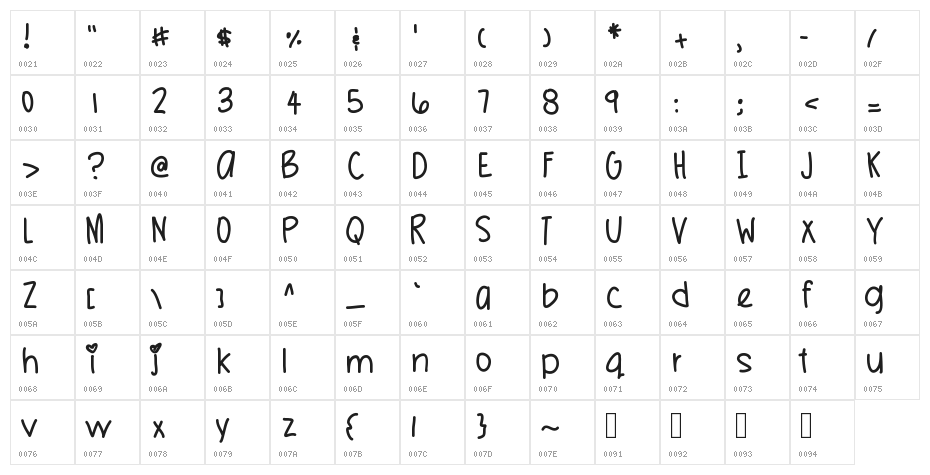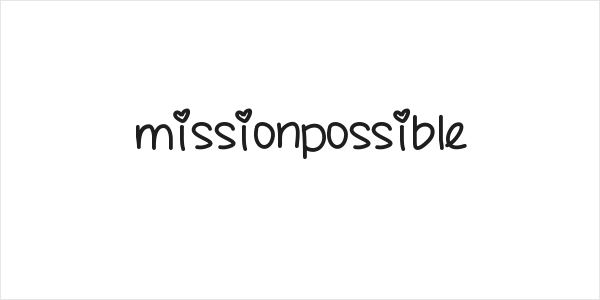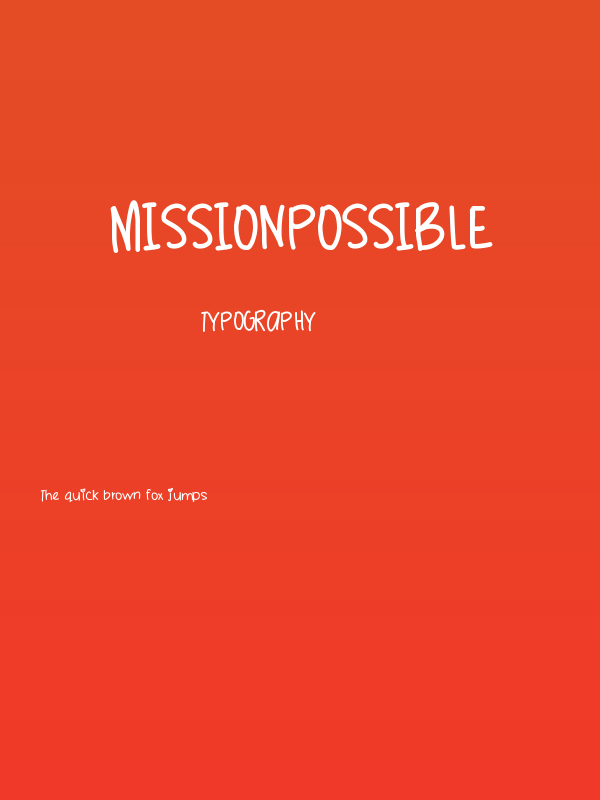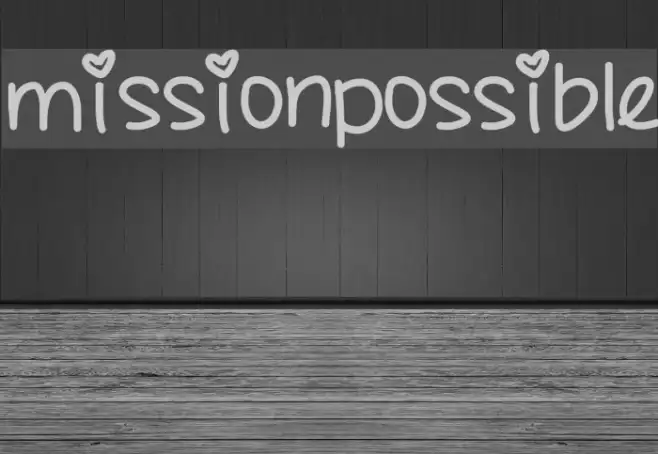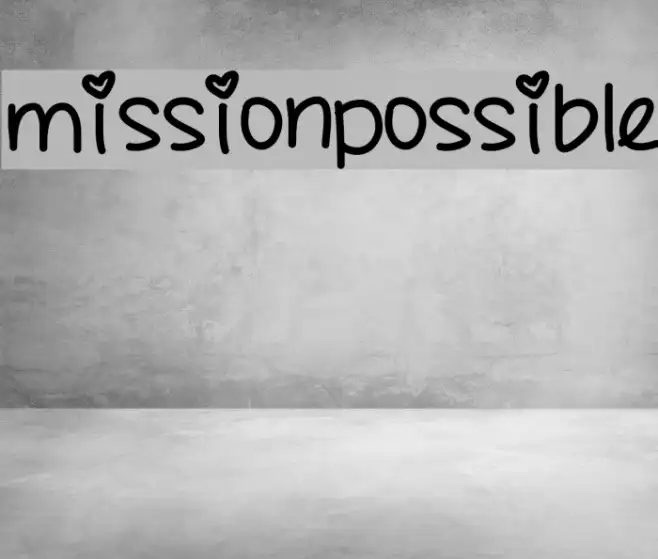
missionpossible Font
missionpossible Description
This playful and whimsical font features a handwritten style with a casual and friendly appearance. The characters are slightly irregular, adding to the charm and uniqueness of the font. The uppercase letters are bold and rounded, while the lowercase letters maintain a consistent flow with a slightly smaller size. Numbers and special characters are designed to match the overall playful aesthetic, making them suitable for creative projects. The font's informal style makes it ideal for projects that require a personal touch, such as greeting cards, children's books, or playful branding materials.